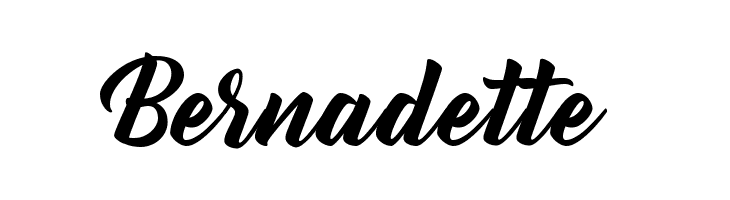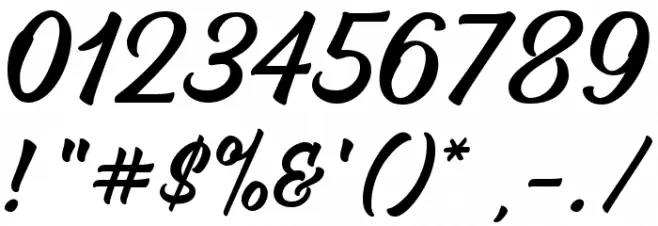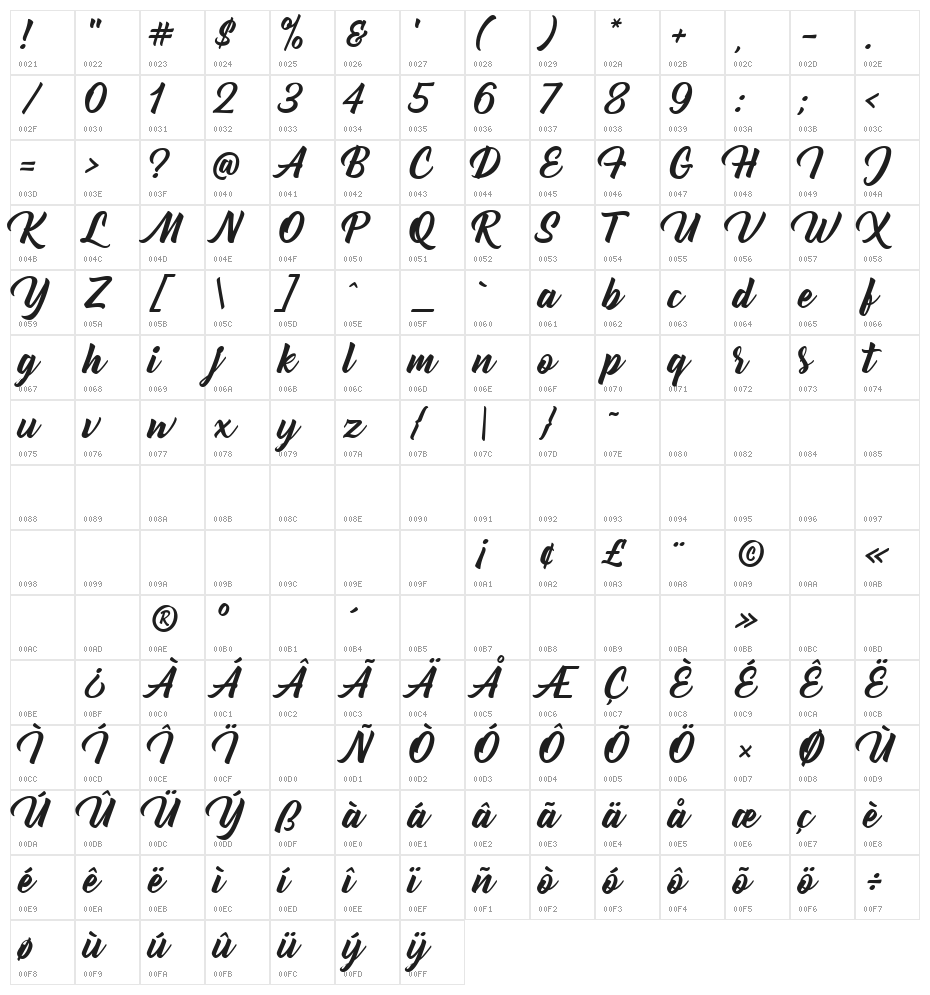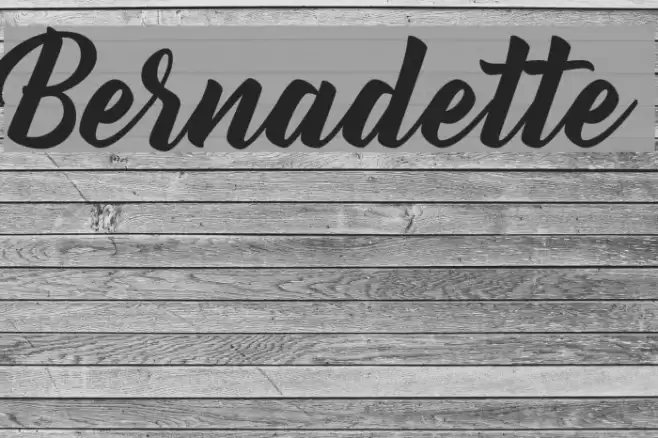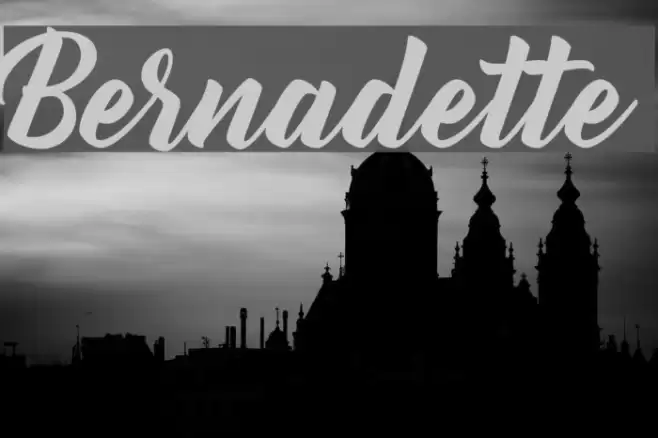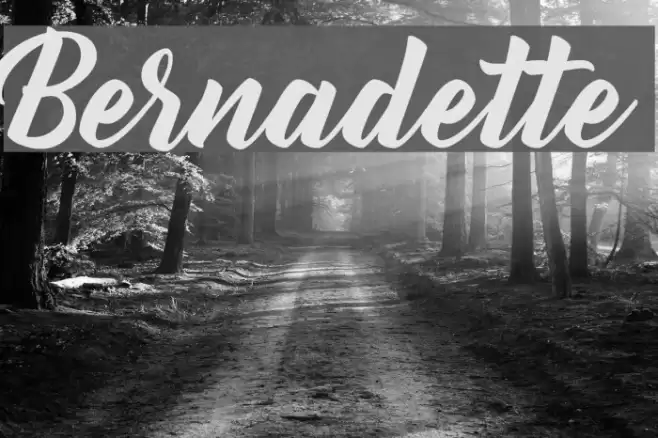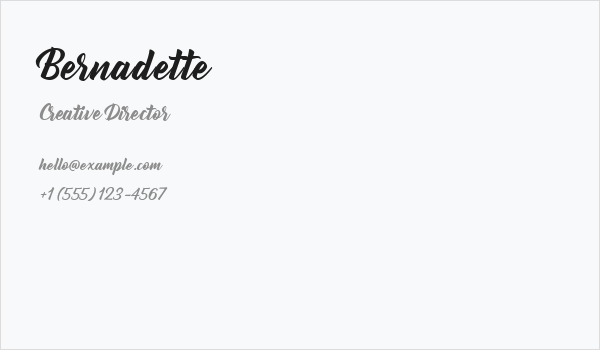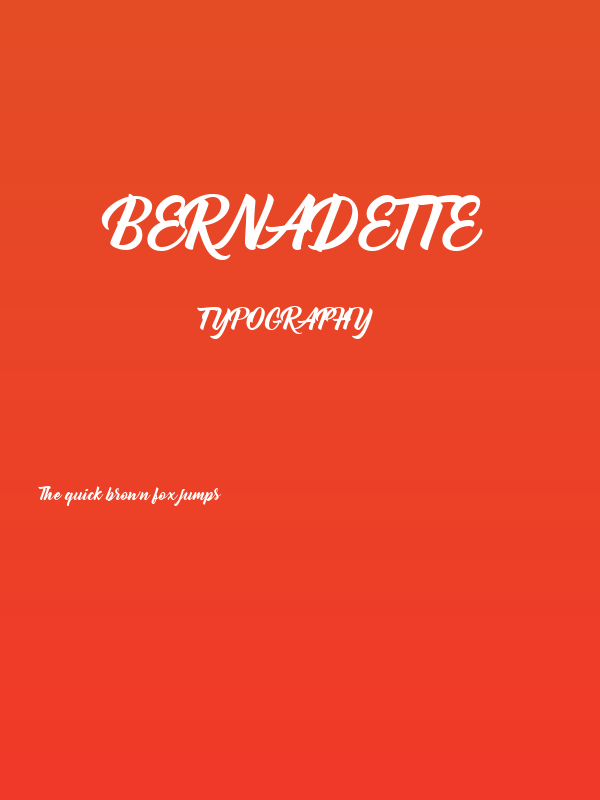
Bernadette Font
Bernadette Description
This font exhibits a bold and expressive script style, characterized by its fluid, cursive strokes and elegant flourishes. The uppercase letters are prominently designed with sweeping curves, while the lowercase letters maintain a consistent flow, enhancing readability. The numerals are equally stylized, maintaining the overall script aesthetic. Special characters are thoughtfully integrated, ensuring versatility in various design contexts. The font's bold weight and high contrast between thick and thin strokes contribute to its dynamic appearance, making it suitable for impactful and artistic designs.